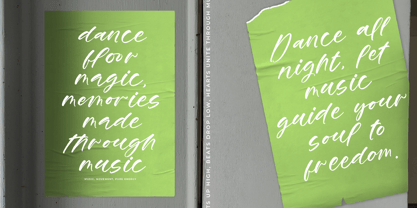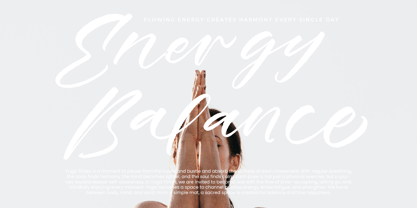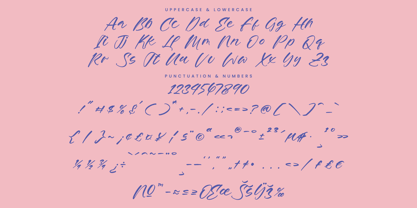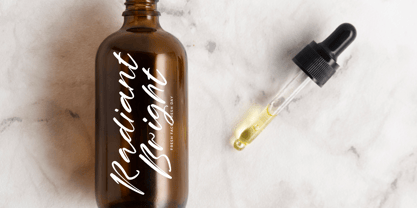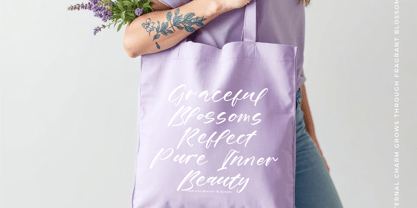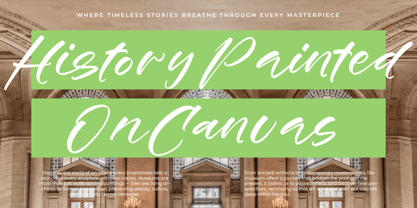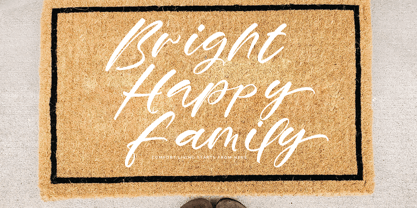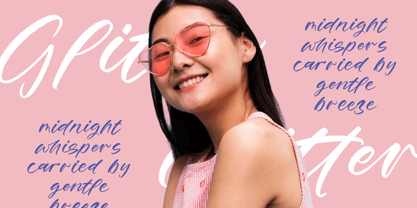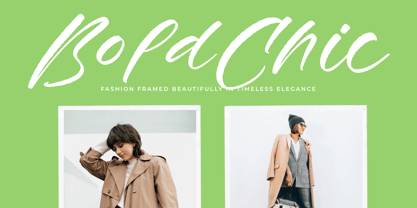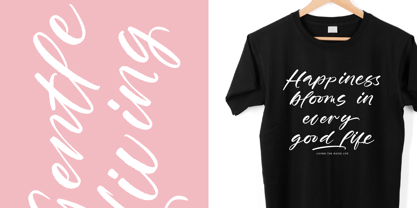
Breakup Galaxy
by Stylishtype Studio
The Breakup Galaxy Font Family was designed by Heru Utama Putra and published by Stylishtype Studio. Breakup Galaxy contains 2 styles and family package options.
Breakup Galaxy - Modern Handbrush Font , from Stylishtype , Suitable for any projects such as: logos, branding projects, homeware designs, product packaging, mugs, quotes, posters, shopping bags, t-shirts, book covers, name card, invitation cards, greeting cards, label, photography, watermark, special events, and all your other luxury and beautiful projects that need a Luxury Script taste.